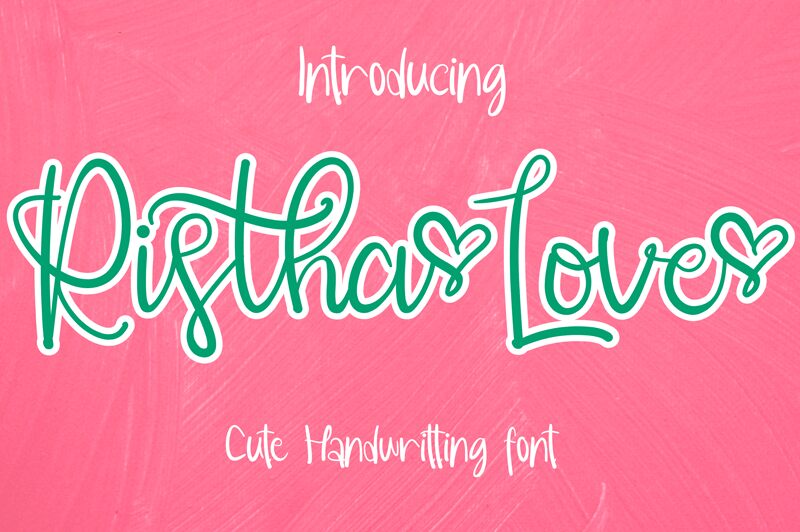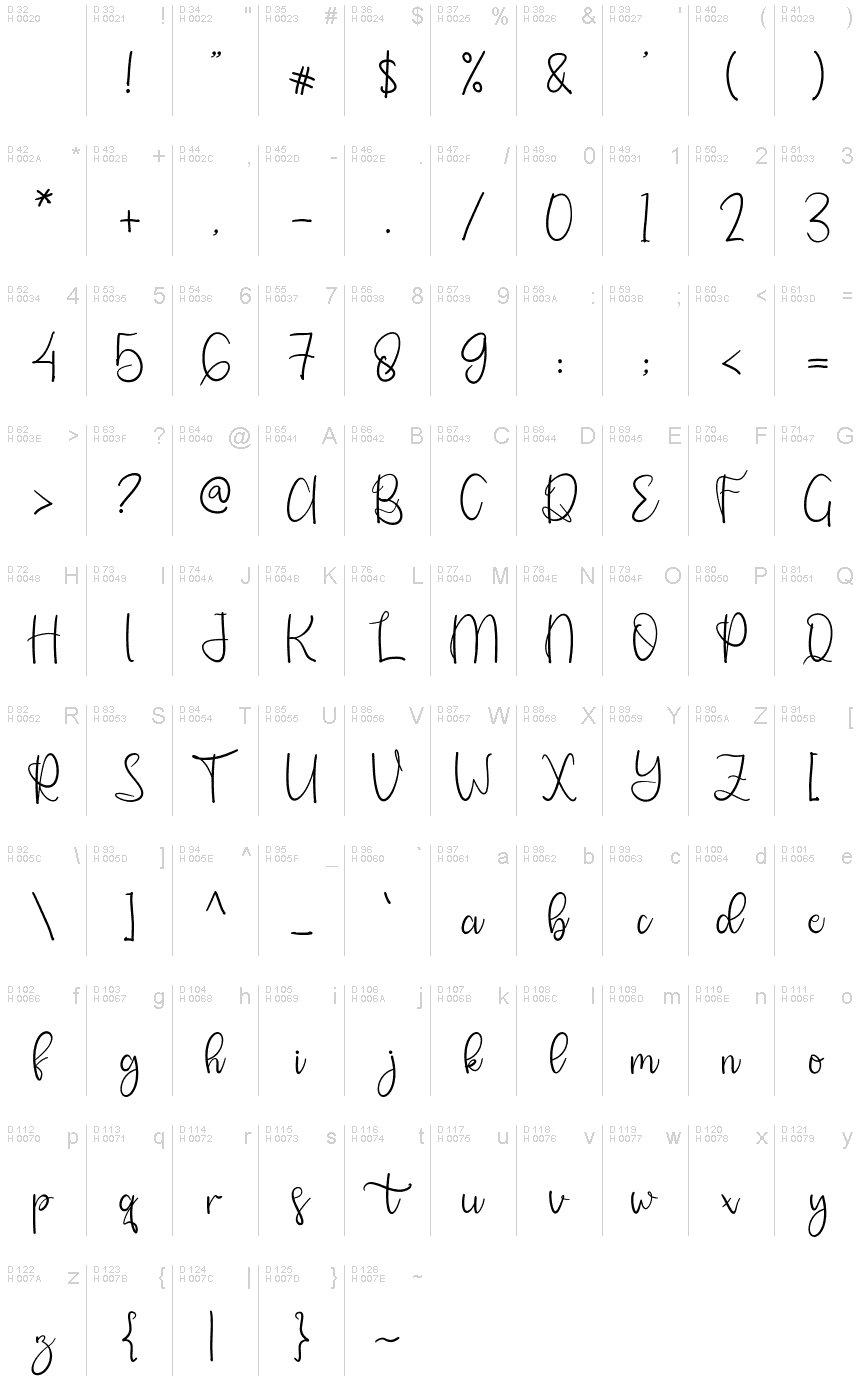
RisthaLove
Ristha Love is a beautifully crafted semi-light handwritten font designed by Bongkeng Art Studio. Its semi-condensed font width makes it perfect for use in projects where space is limited, while its playful and whimsical style adds a touch of personality and charm to any design. This font is suitable for a wide range of projects, from wedding invitations and greeting cards to social media graphics and logos. Use Ristha Love to bring your creative ideas to life, adding warmth and authenticity to your designs with its unique handwritten style.